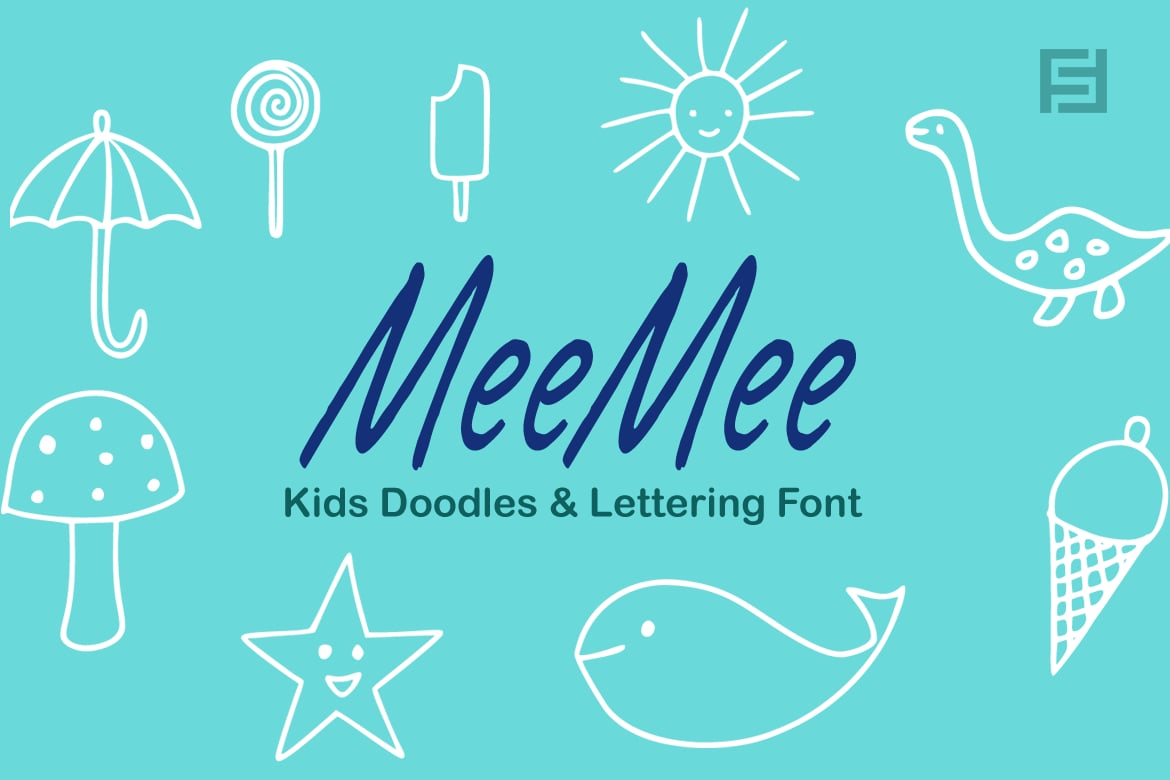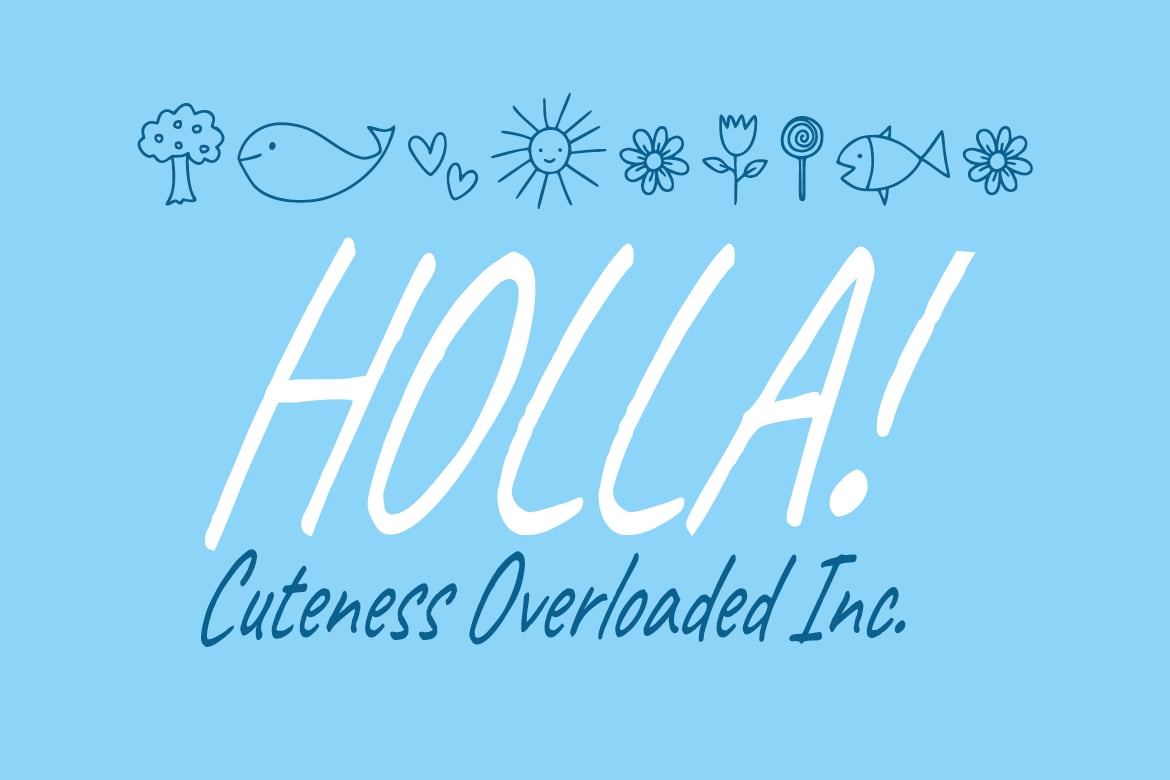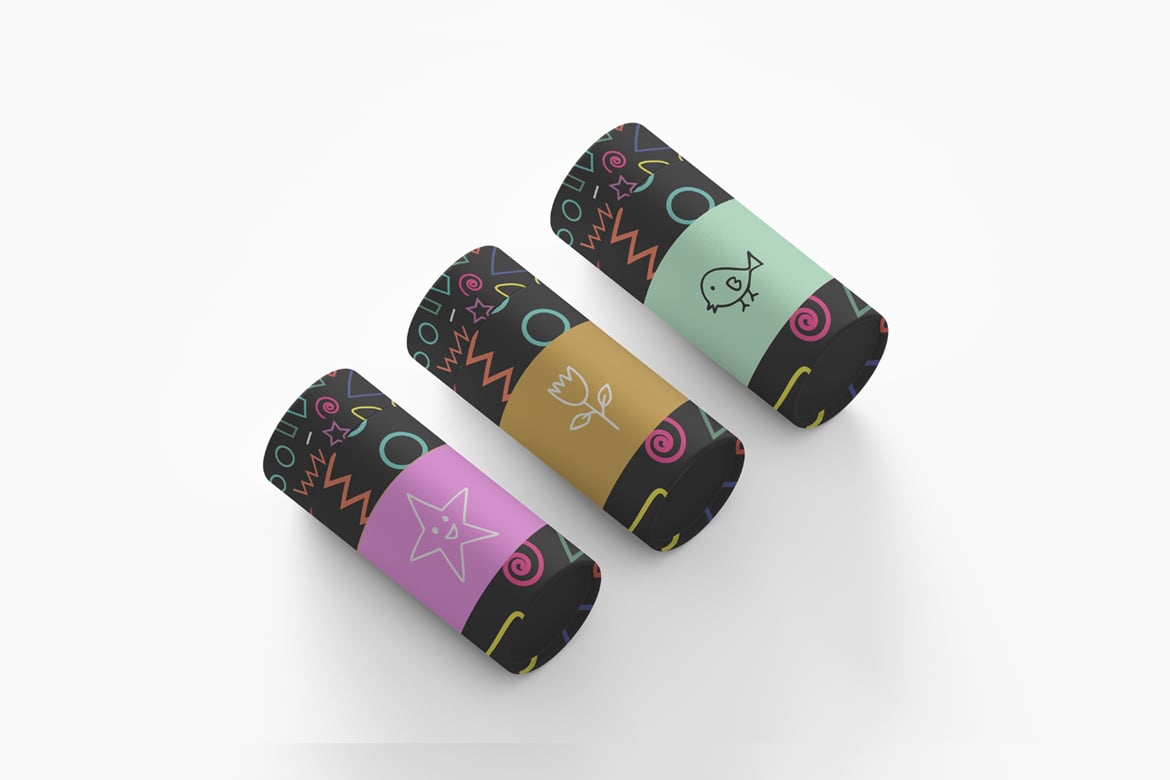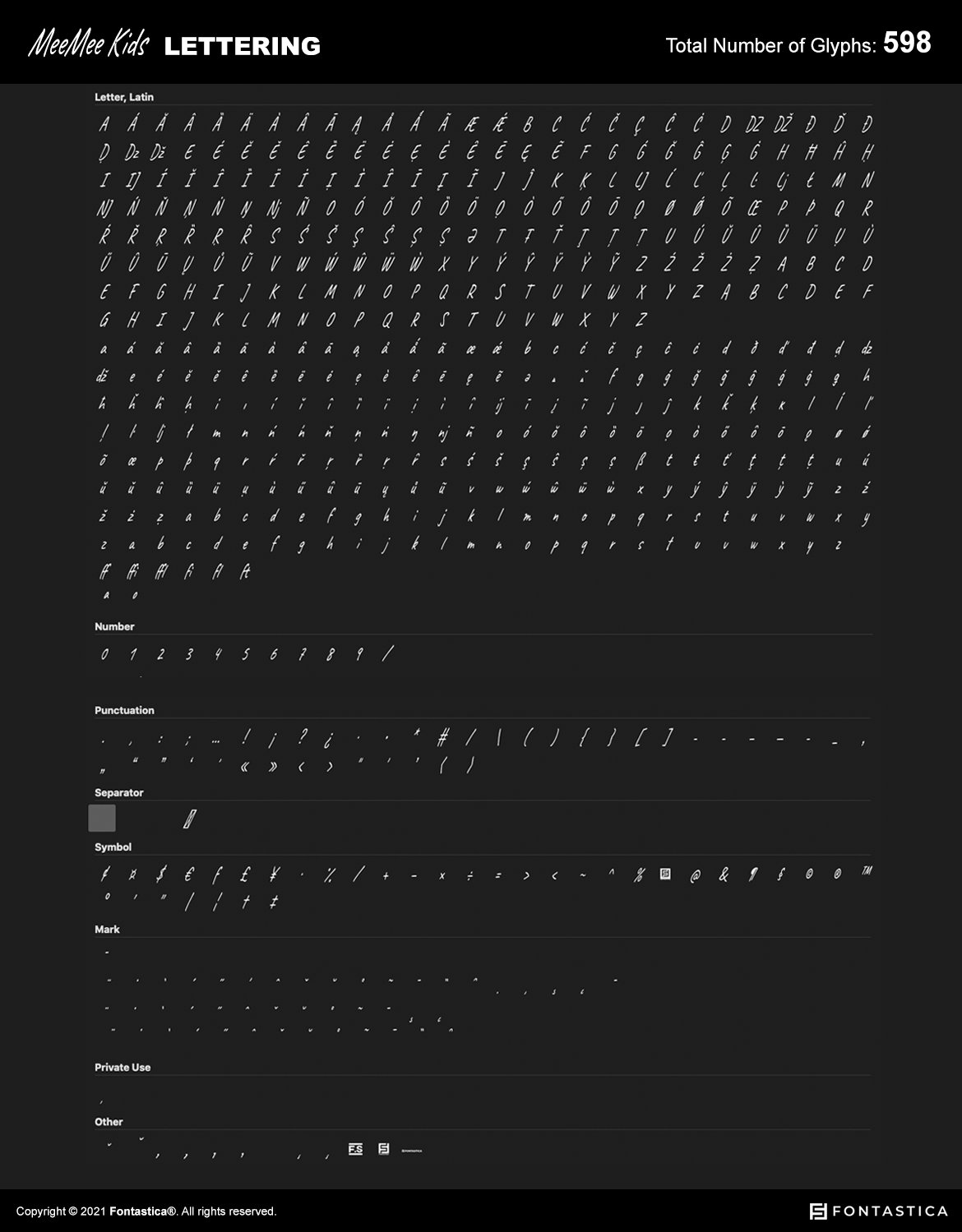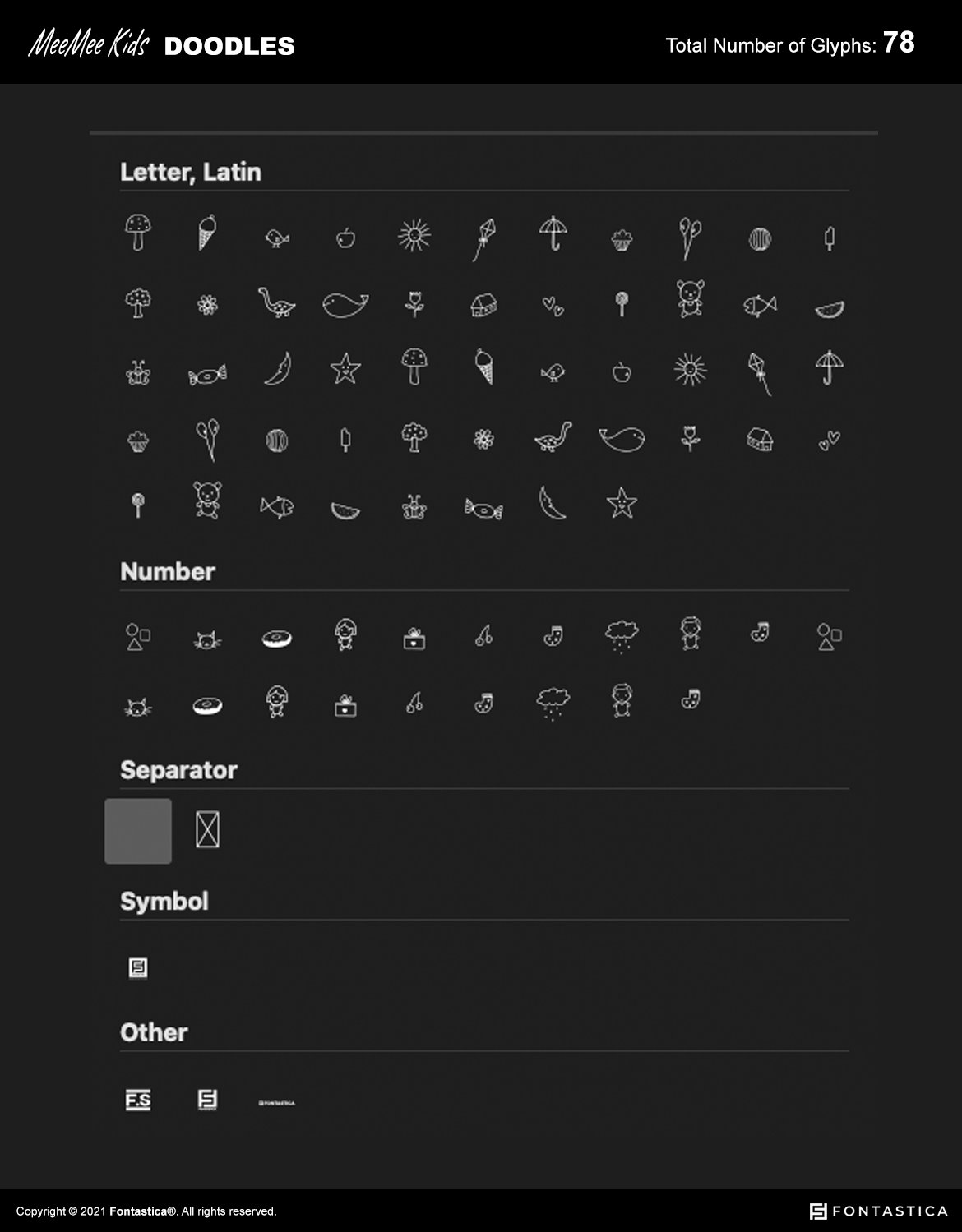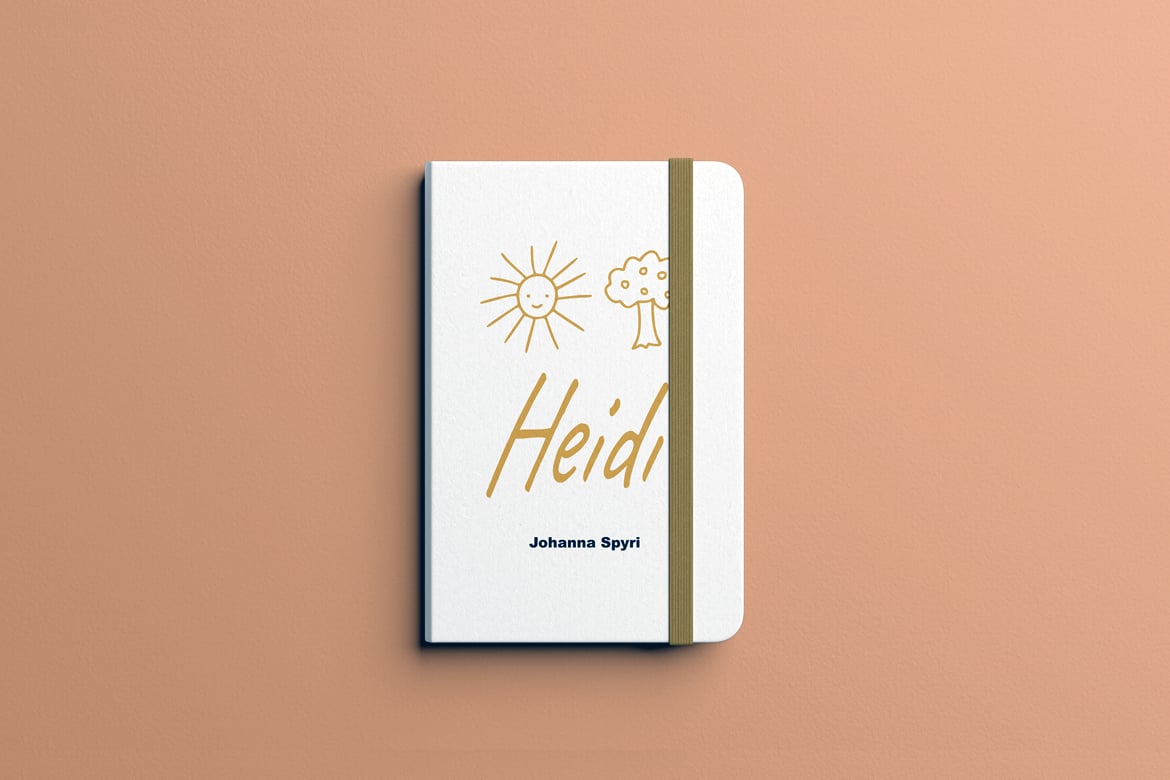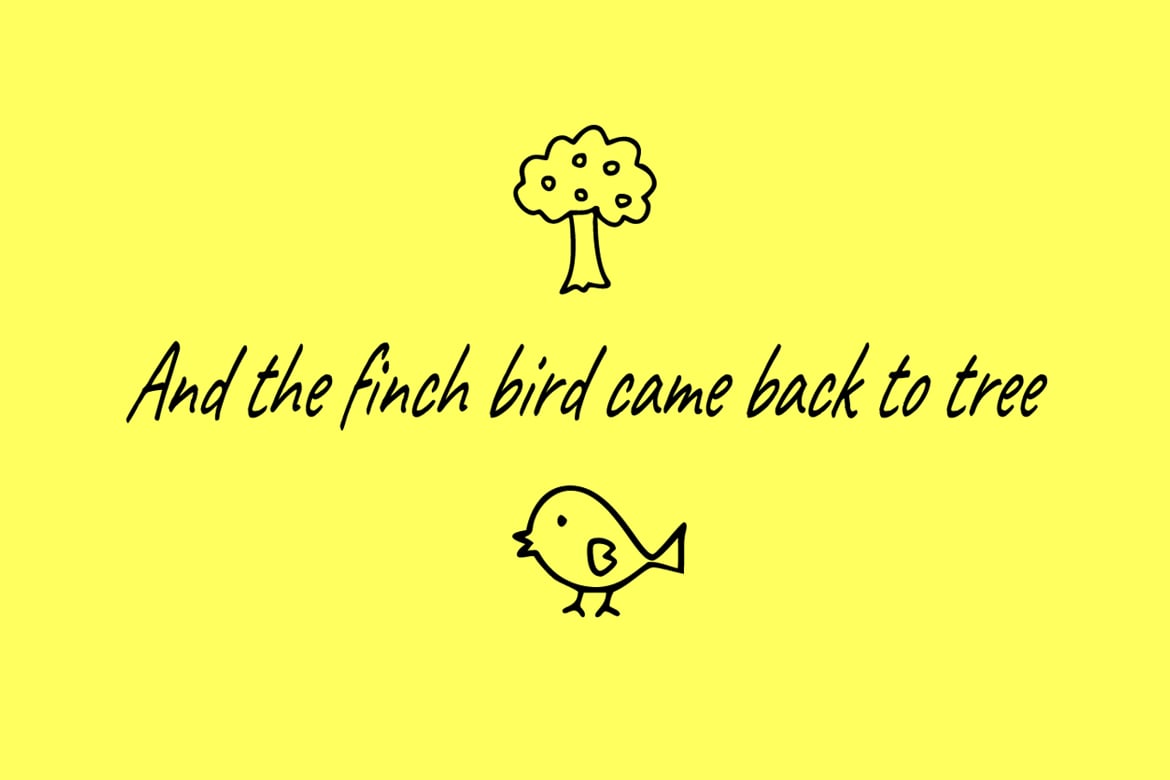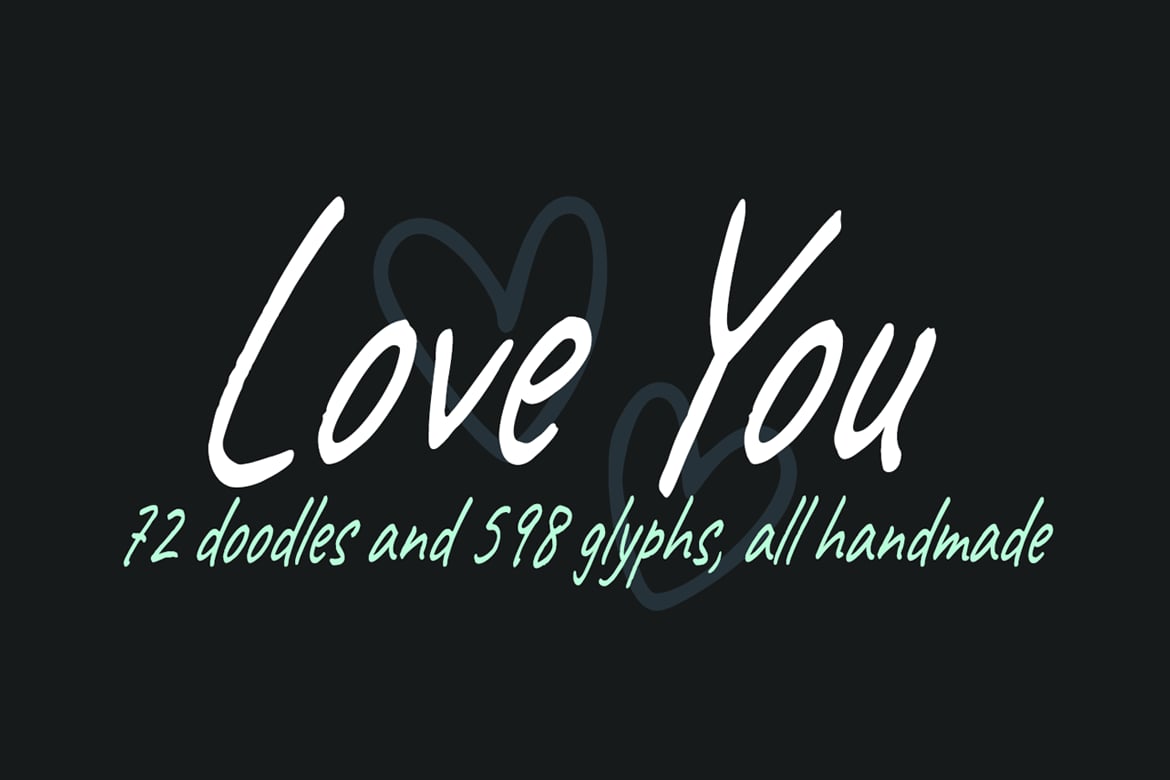
MeeMee Kids Doodles / Icons & Lettering Font
MeeMee is a typeface containing 72 handmade kids doodles and a lovely handwritten kids lettering font.
MeeMee typeface comes with 2 fonts:
- Kids Doodles Font (72 handmade kids Doodles / Symbols / Icons)
- Kids Lettering Font (Kids Hand-lettering with 598 Glyphs)
The typeface is perfect for kid-friendly designs, kids room posters, kids graphics & wallpapers, kids product branding, logotype, decorations, signage, greeting cards, promotional designs and anything that needs the lovely cute kid friendly look.
Advanced Kerning & Extended Character Sets:
We have performed advanced, in-depth kerning to make sure the font looks amazing on all possible letter combinations. The font includes extended language support including Western European & Central European sets with a total of 598 glyphs.